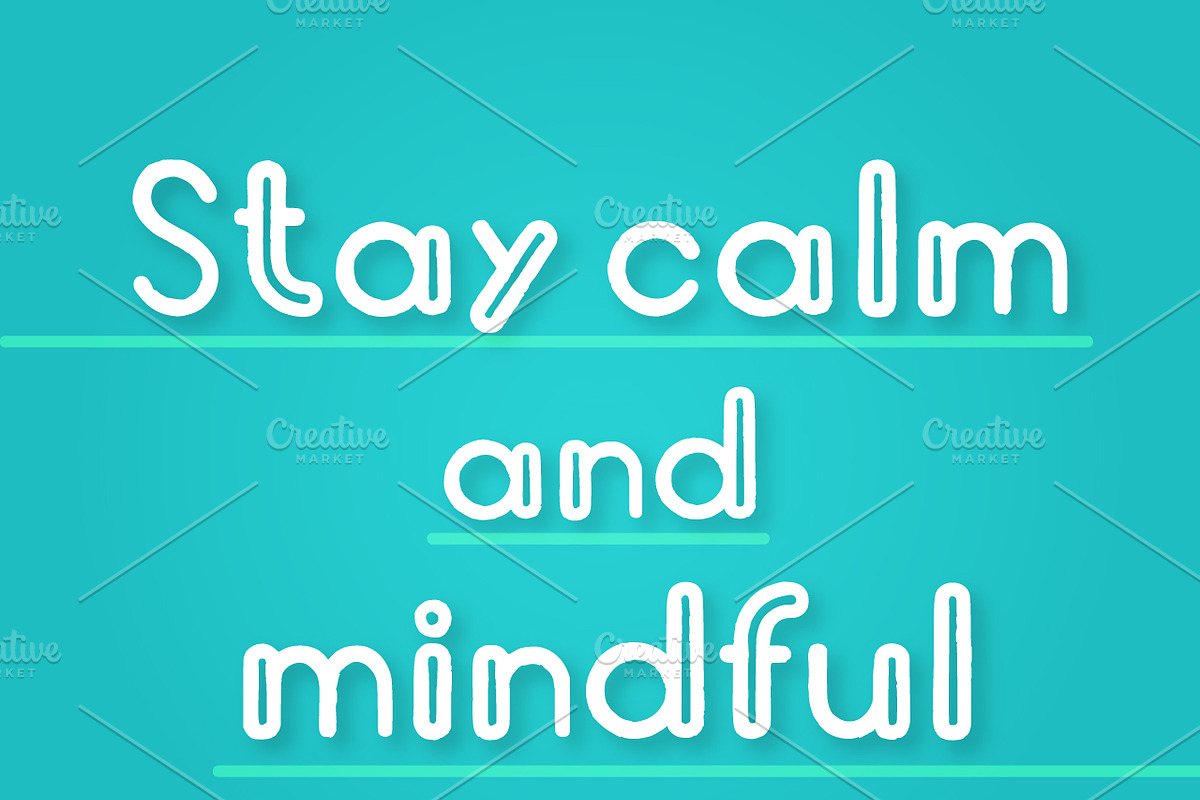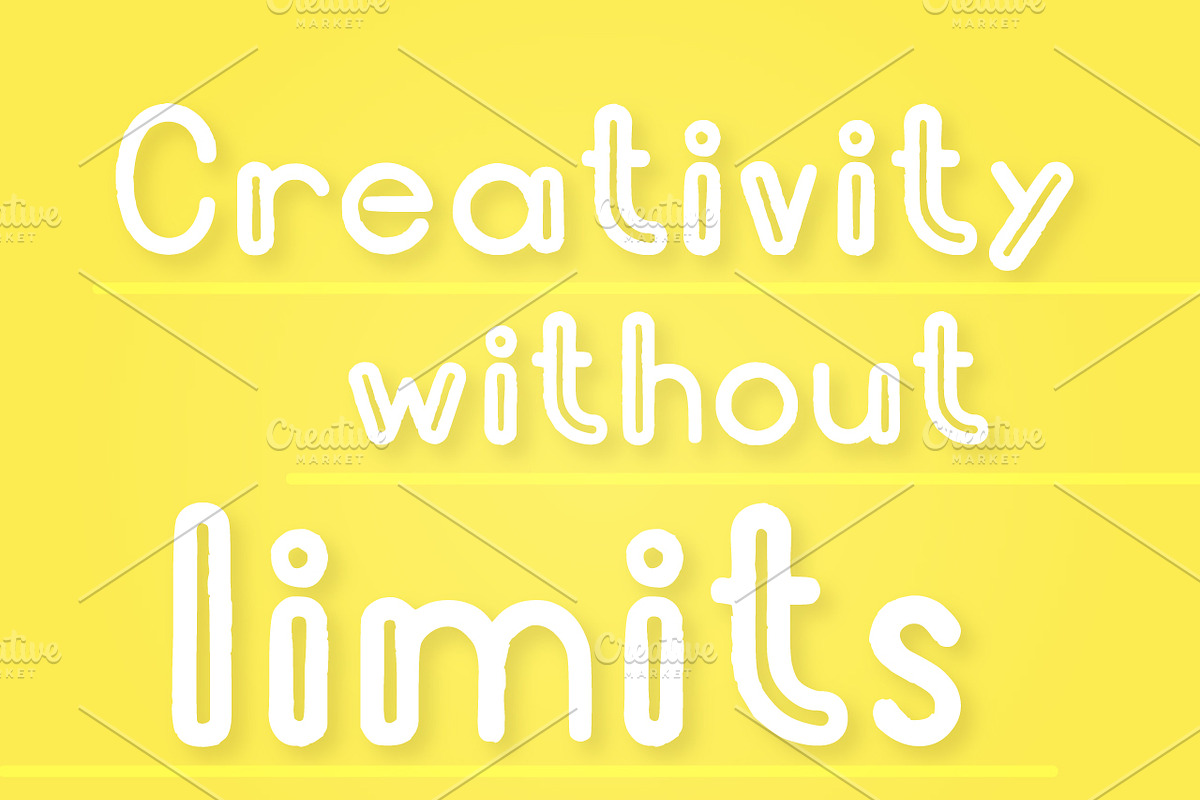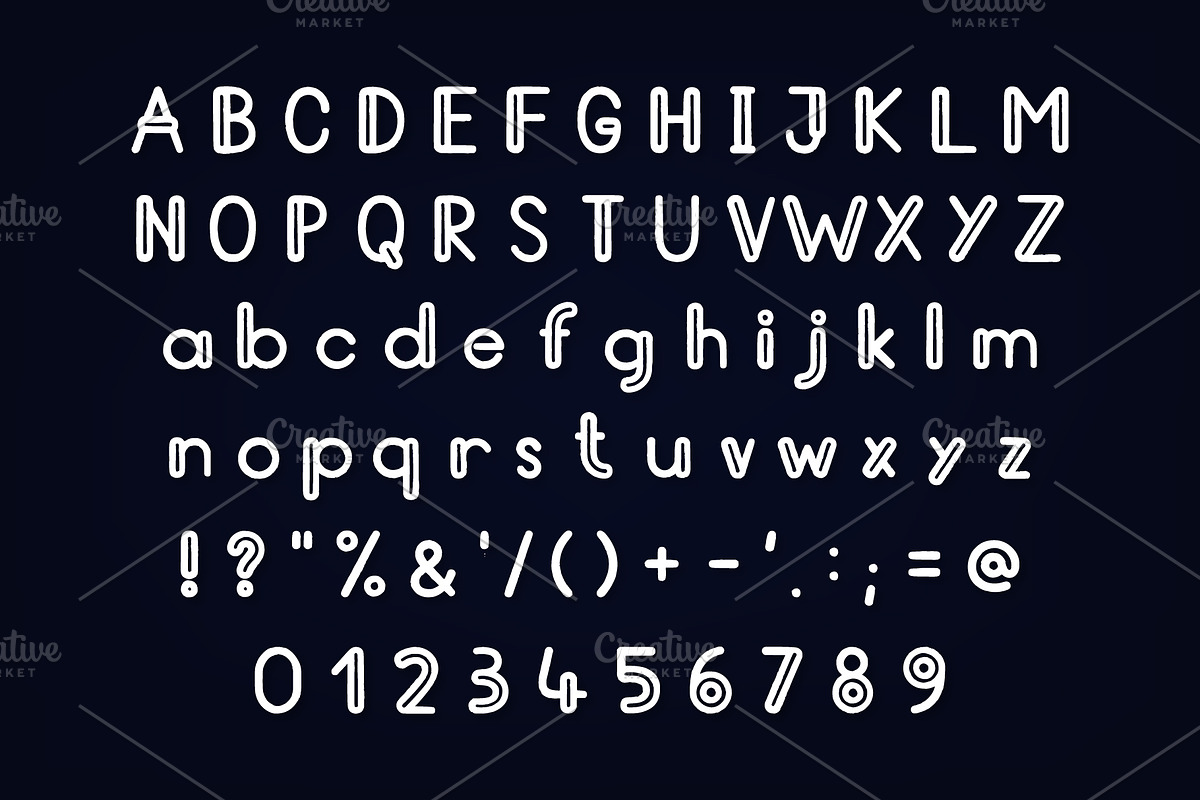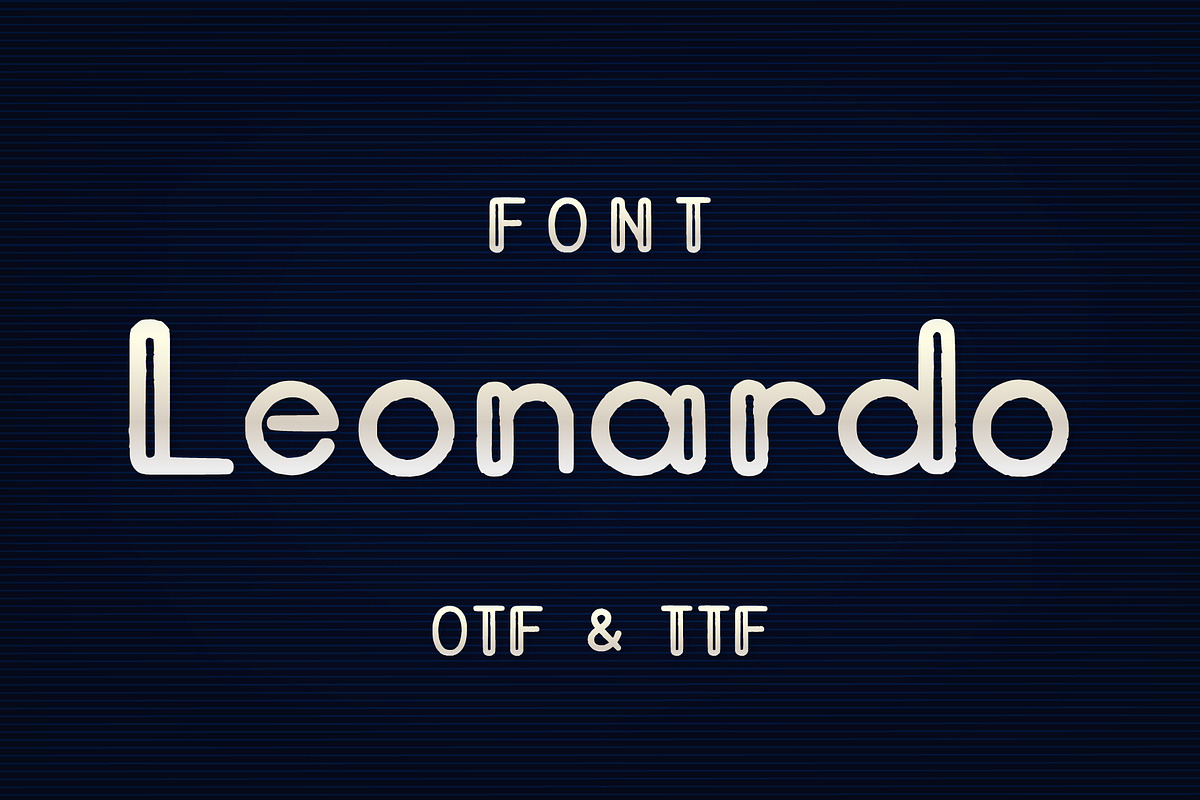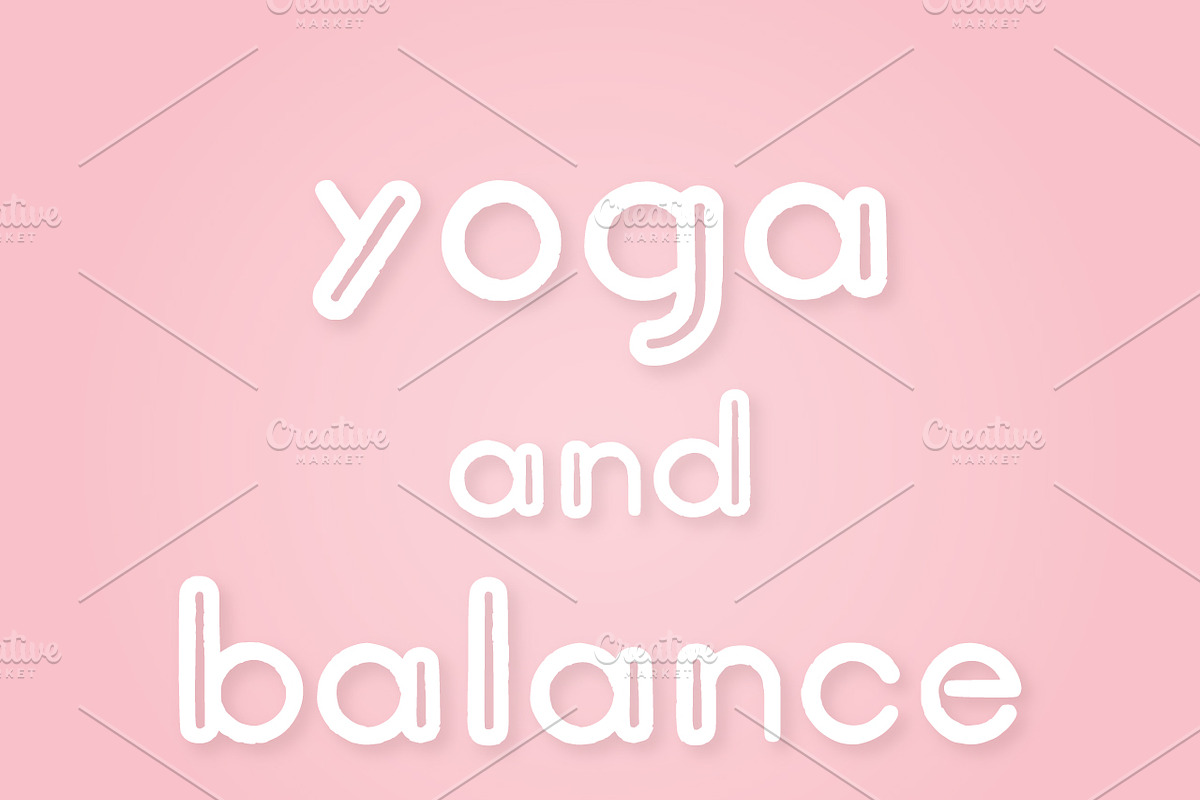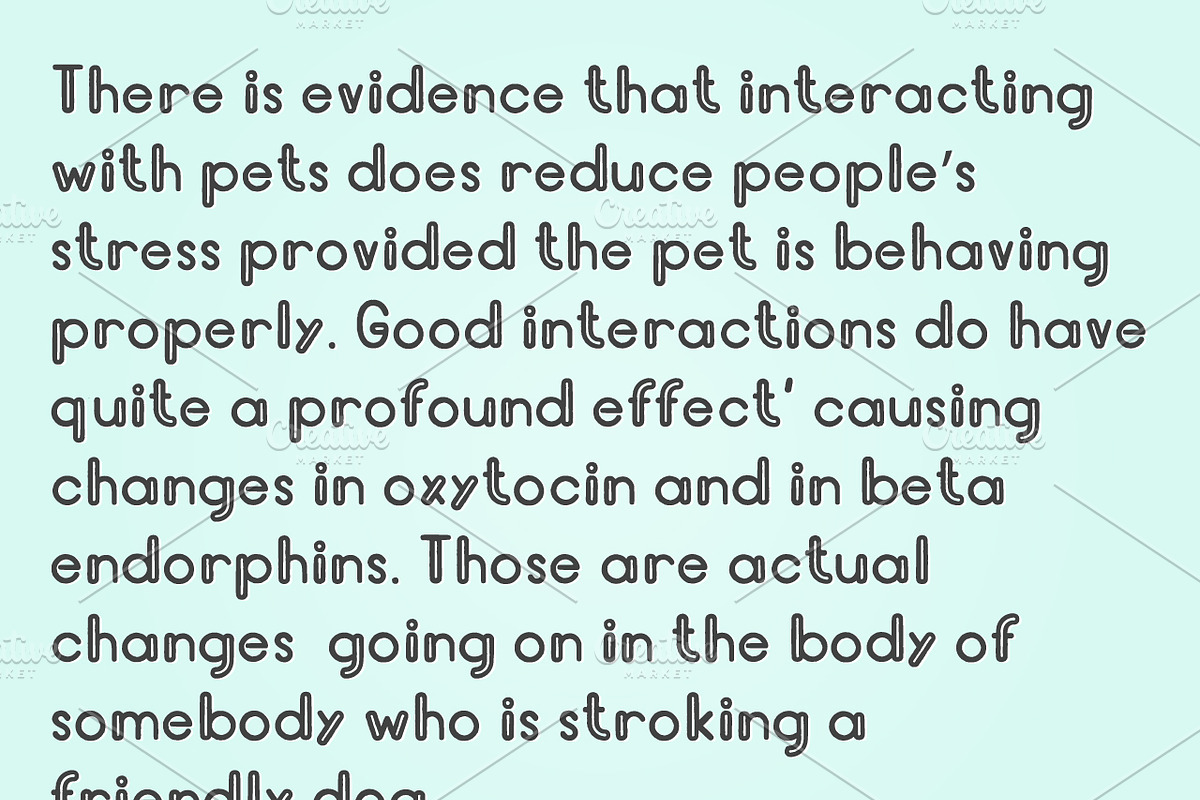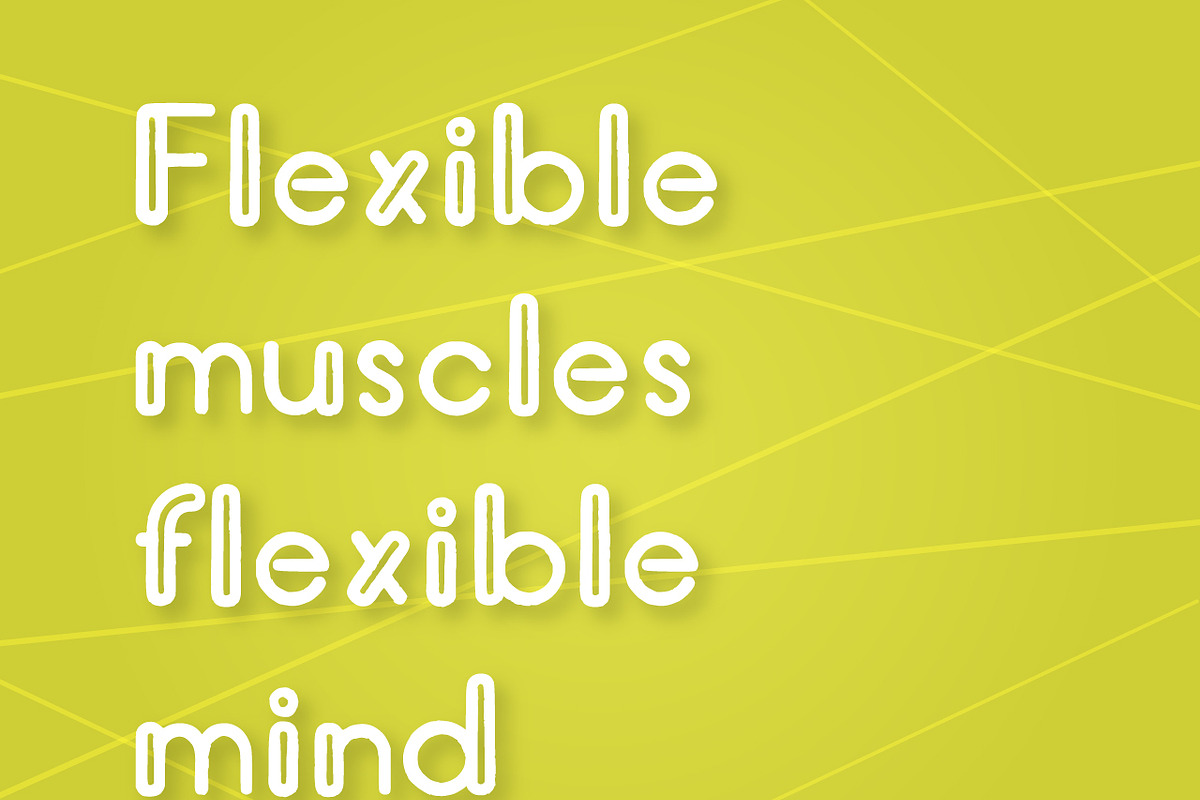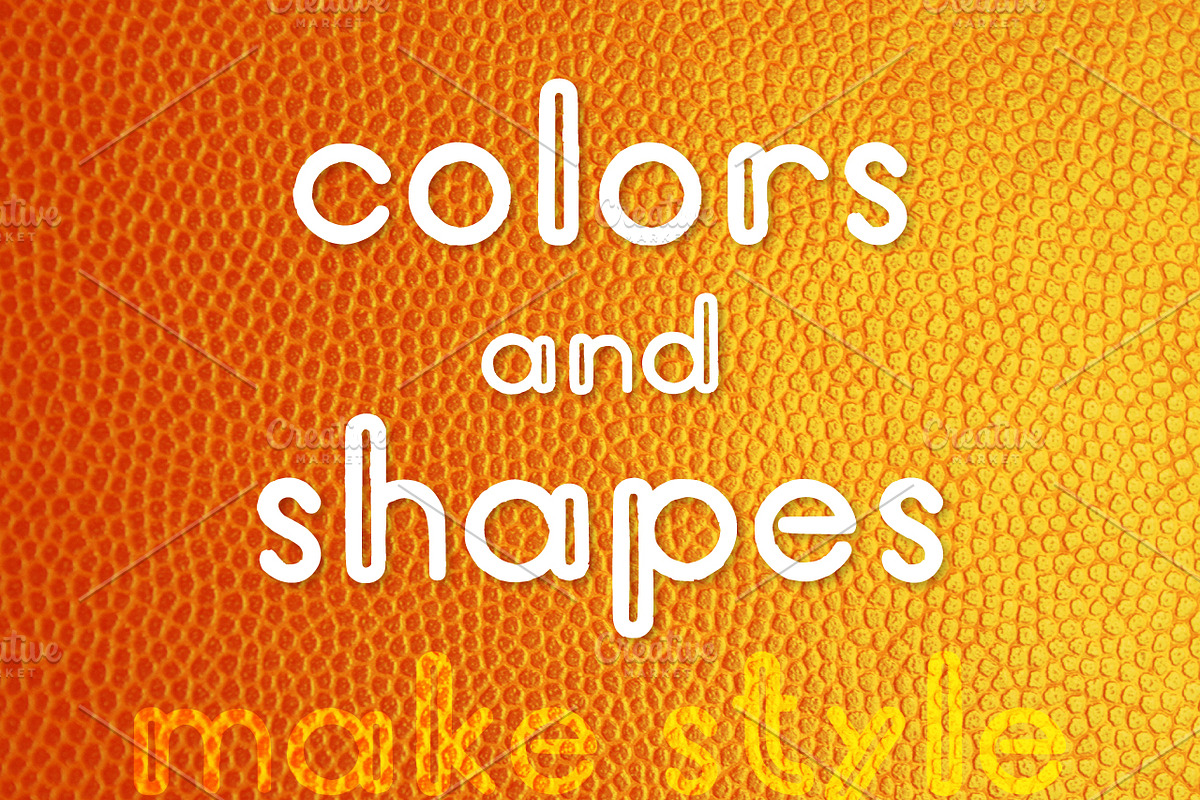
Leonardo font
This is modern stylish font Leonardo for those who like to do modern graphics. logos, prints, posters, cards, or are looking for some fresh and trendy font for their project.
- The font contains uppercase, lowercase, numerals, punctuations.
Why Leonardo font is worth a look
Leonardo font by Graphic patterns fits naturally into Branding, posters, packaging, typography.